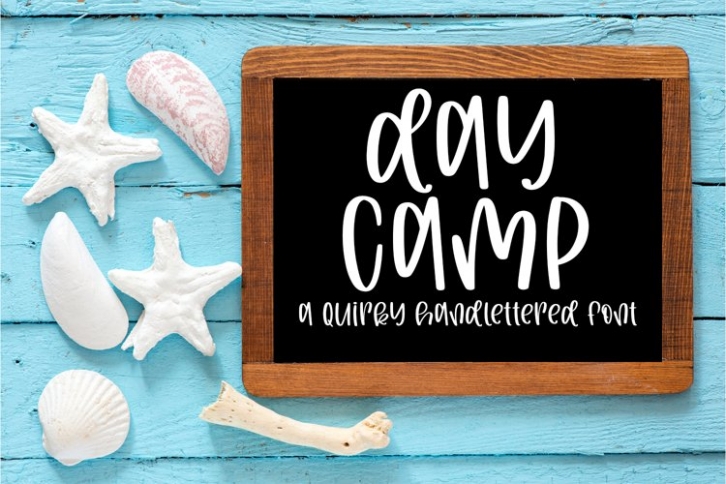
Day Camp is a beautiful font that was designed by plusstore. It's a great choice for designers and creatives who need such a font. It was released on April 3, 2022 and the file size is 12.32 MB. Day Camp may give a more youthful, expressive and casual look to your project. It is a very beautiful, refined, elegant, and high-quality font.